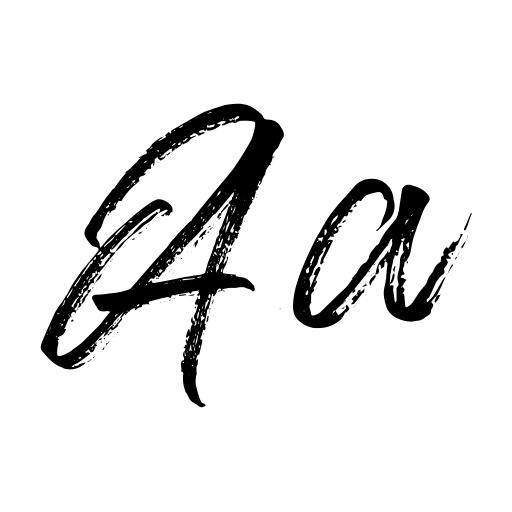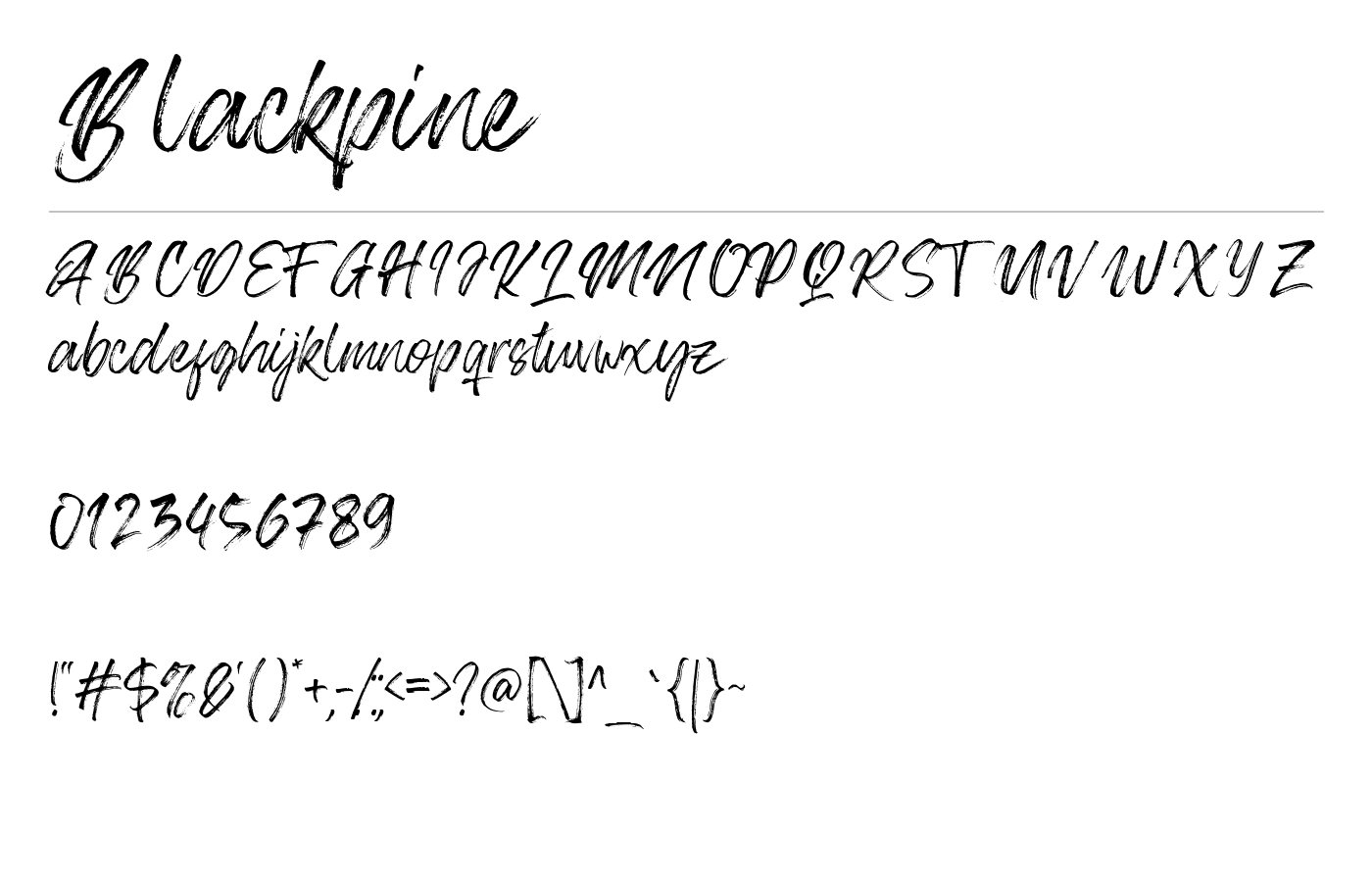
Blackpine is a lively, brush-script font with a textured, hand-painted feel that adds a touch of casual elegance. Its flowing, slightly rough strokes and varied weight give it an authentic, artistic personality perfect for creative branding, invitations, and expressive headlines. This font works best where a natural, handcrafted look is desired, bringing warmth and energy to designs.
Blackpine Font
About Blackpine Font